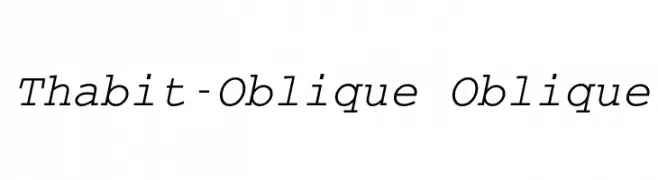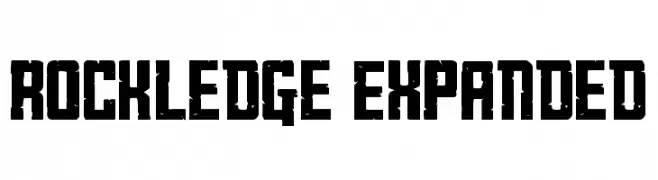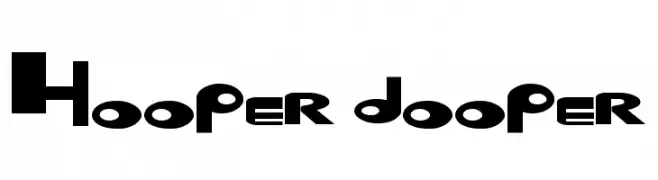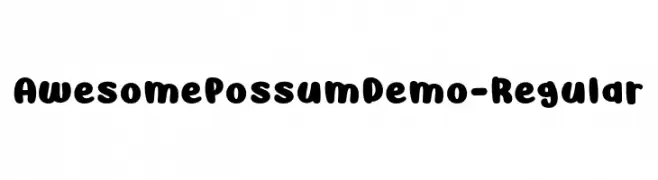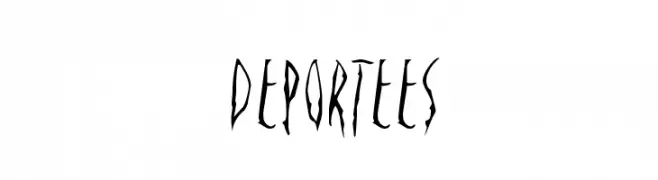
A clean, oblique font with a modern and dynamic style.
A bold, decorative font with a 3D effect and mythical, runic-inspired design.
A playful, handwritten font with a casual and friendly vibe.
A bold, rugged font with an industrial and vintage aesthetic.
A bold, condensed font with a modern and impactful style.
A playful, bold font with rounded, thick characters and a whimsical style.
A jagged, angular font with sharp strokes and dynamic energy.